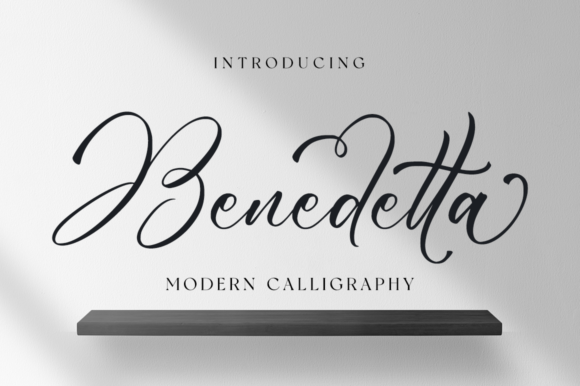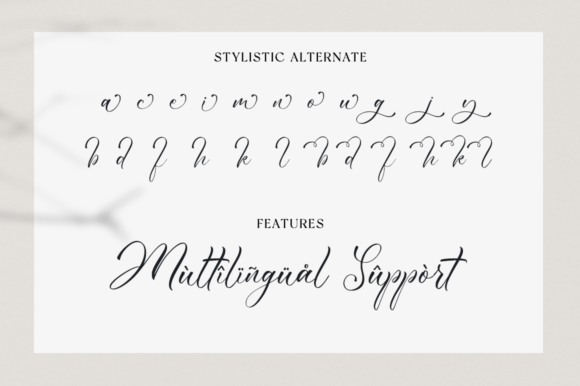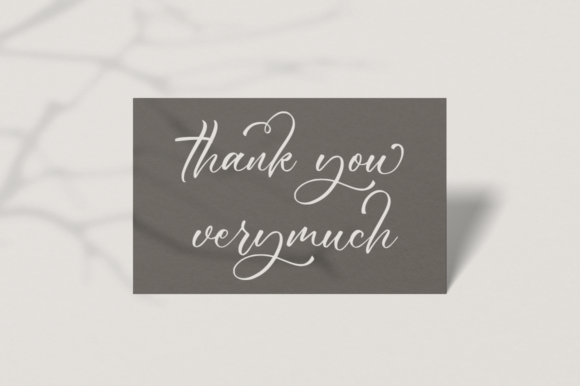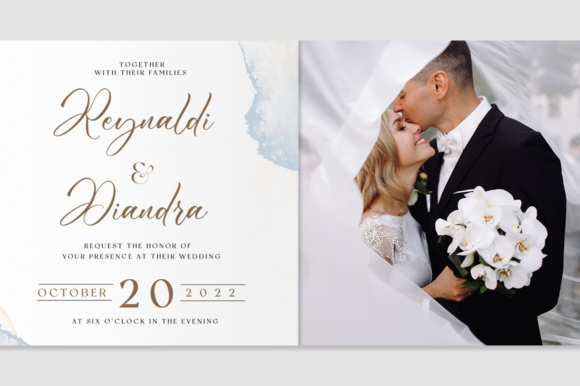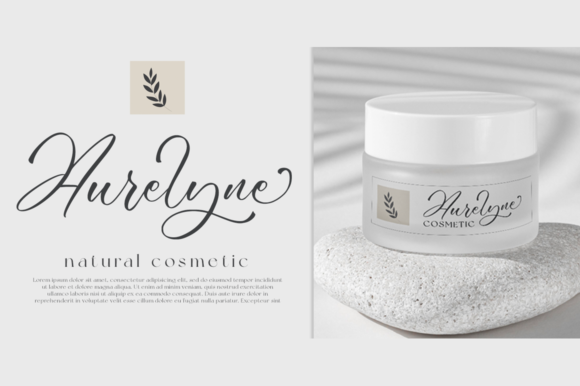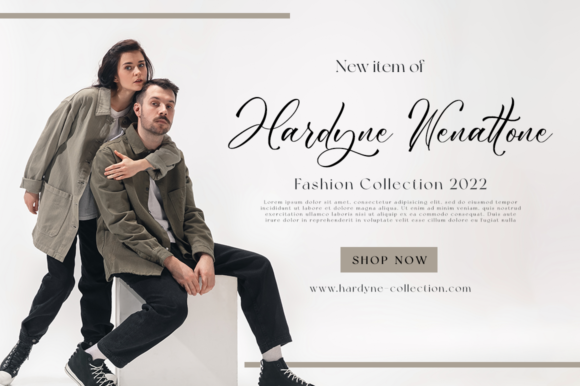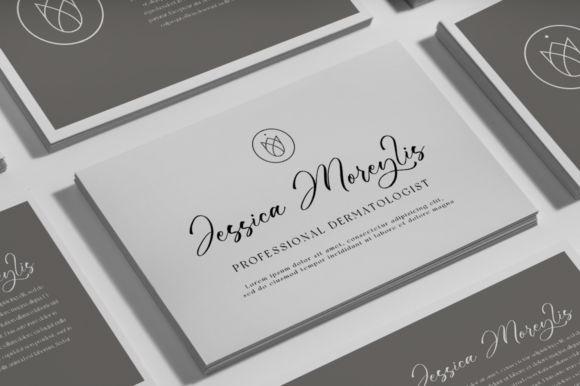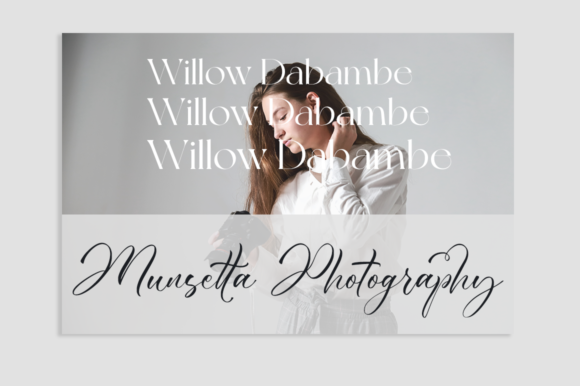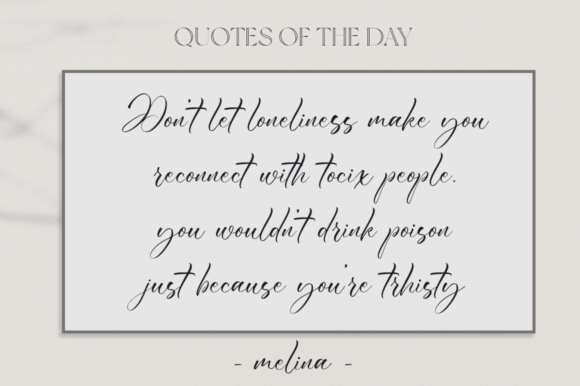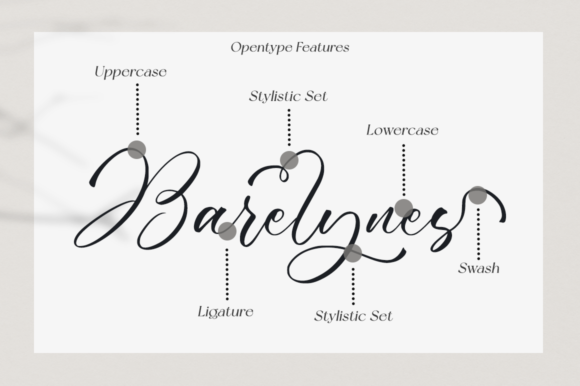
Benedetta Font
Benedetta is a beautiful and delicate handwritten font with a unique feel and a stunning impact. It will add a luxury spark to any design project that you wish to create! This font is PUA encoded which means you can access all of the amazing glyphs and ligatures with ease!